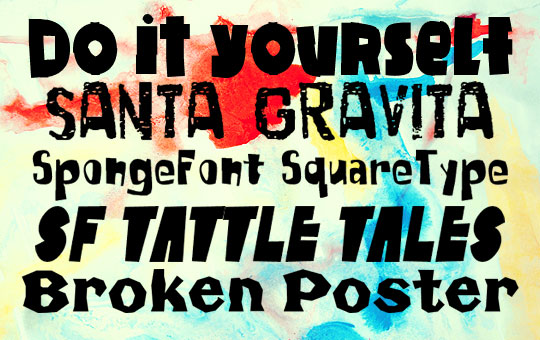
Funny Comic Fonts: Be Childish – Be Positive!
Funny comic fonts are definitely for those who have unrestrained energy, vigorous imagination, and who actually wants to have fun while creating his projects! These merry typefaces can jump and dance, joke and mock, twist and bend. They can look naughty and tousled and scattered all around, but they can also make you smile and have some fun! This collection of free comic fonts is kindly offered to our visitors by our friends from the rich typefaces resource Fonts2u.com. Dive into the funny world, return to your childhood for a while, free a child in you – this merry spirit along with our free comic fonts will create amazing projects!